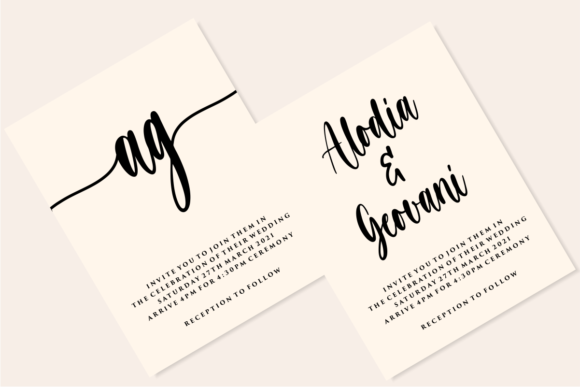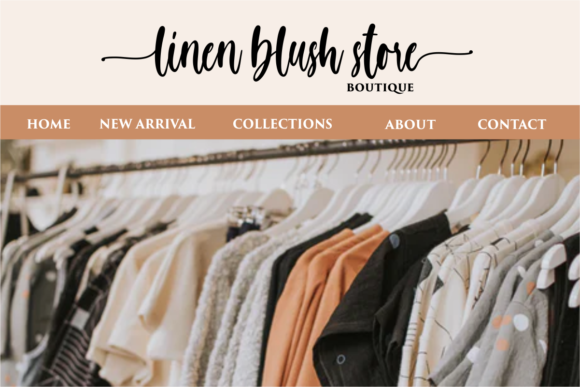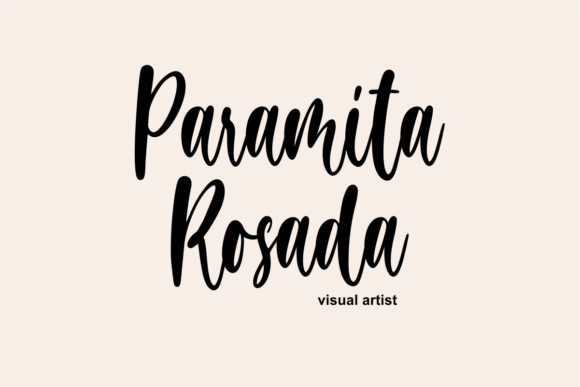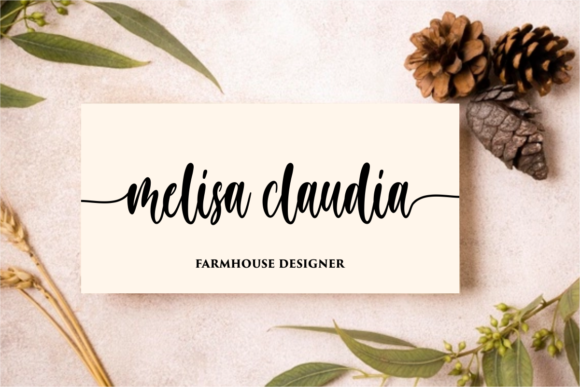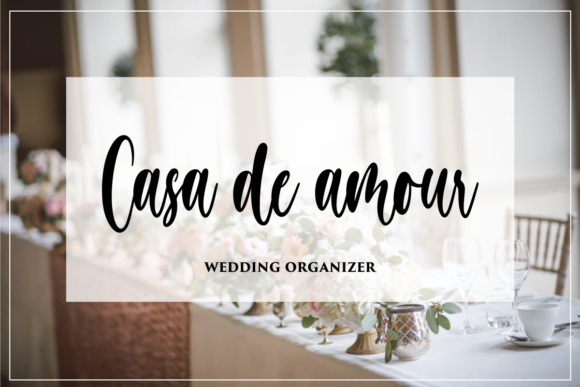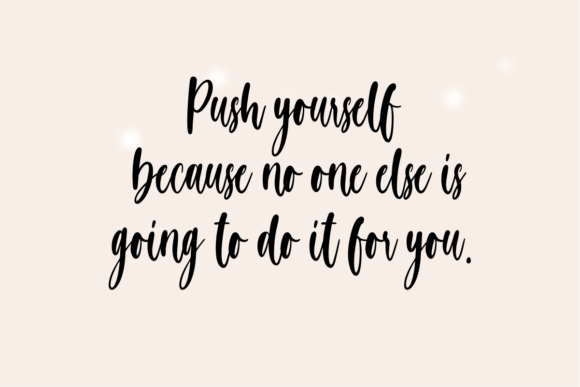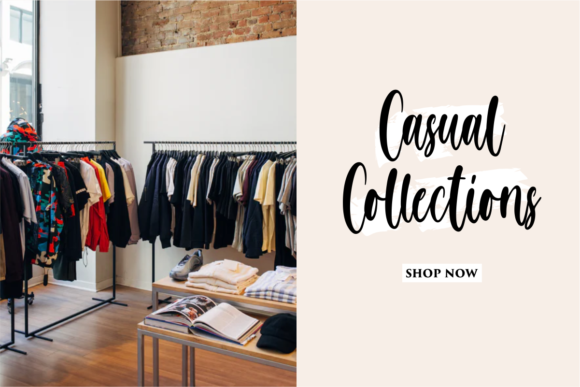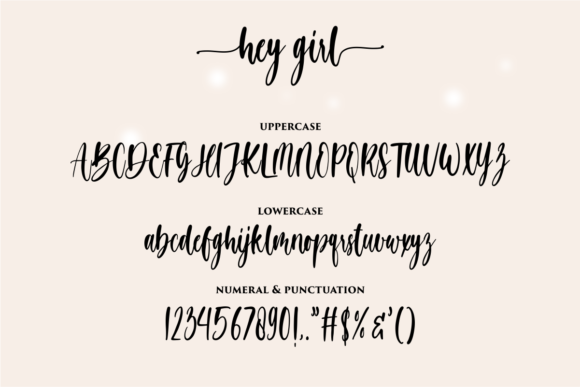
Hey Girl Font
Hey Girl feels incredibly distinct and original. It looks lovely on wedding invitations, thank you cards, quotes, greeting cards, logos, business cards and every other design which needs a handwritten touch. It features a varying baseline, smooth lines, gorgeous glyphs and stunning alternates.